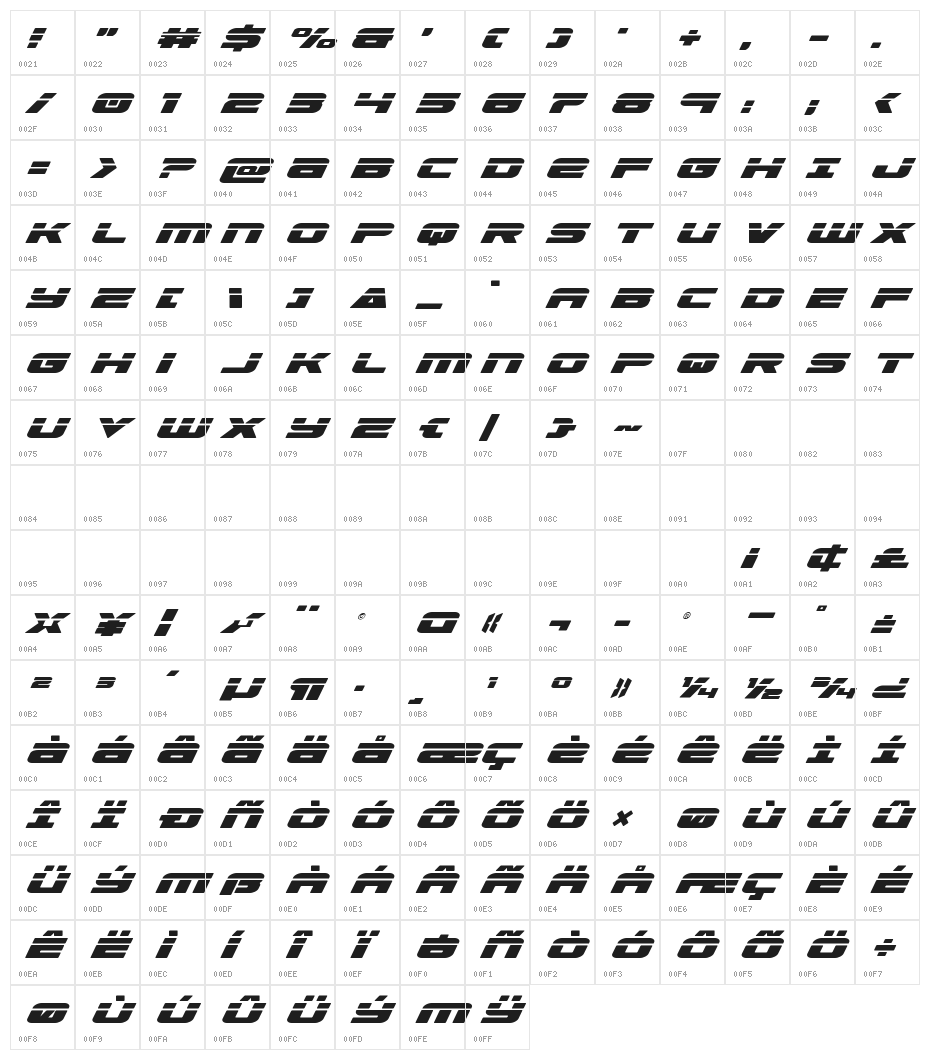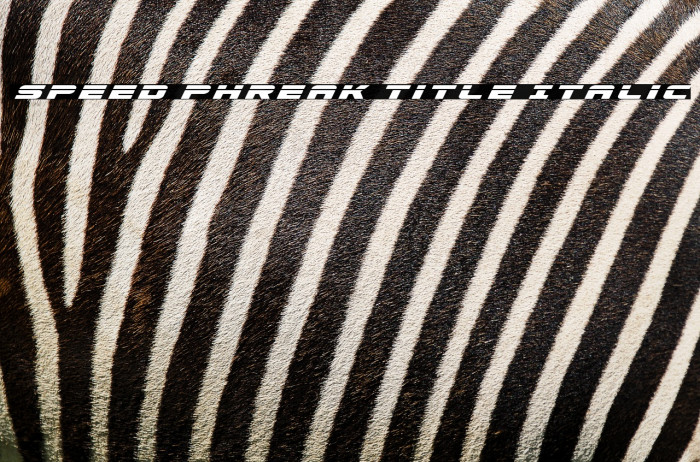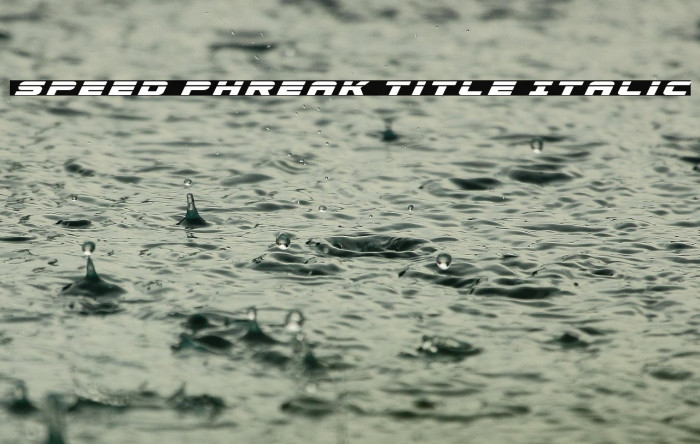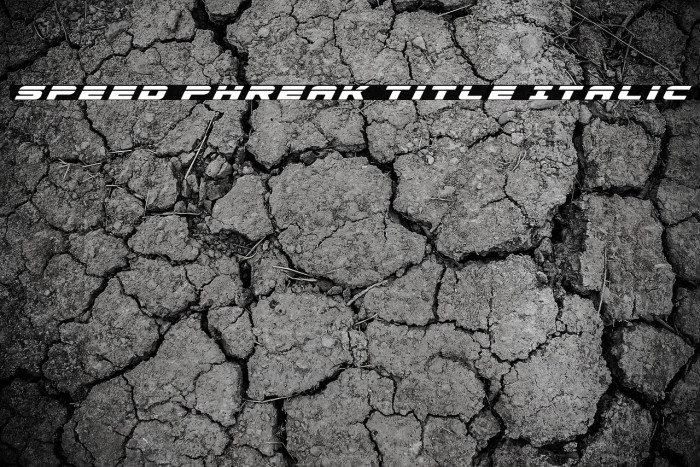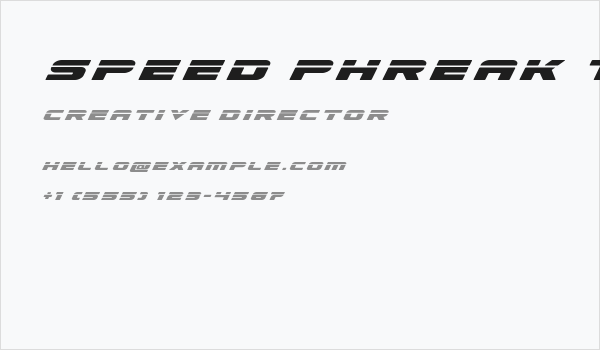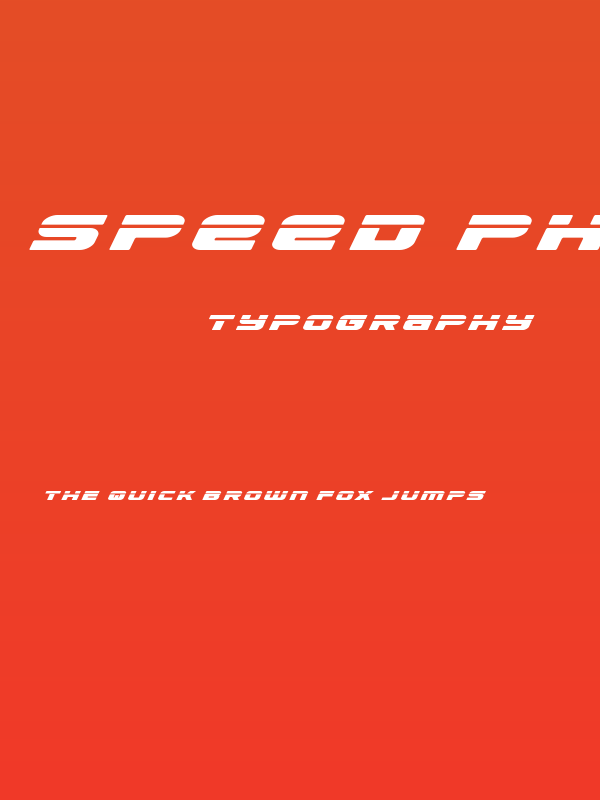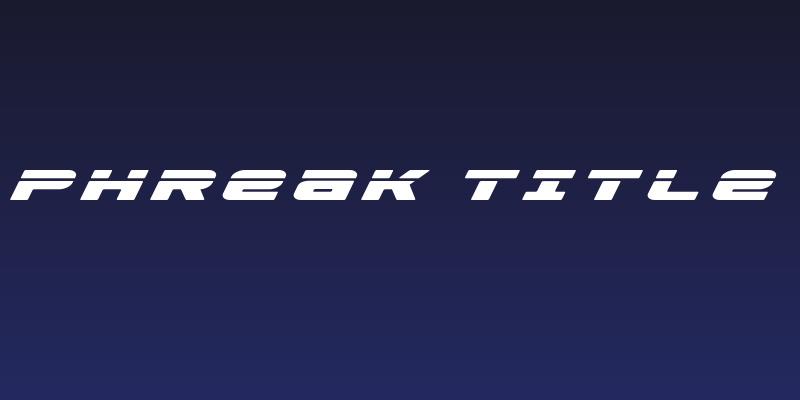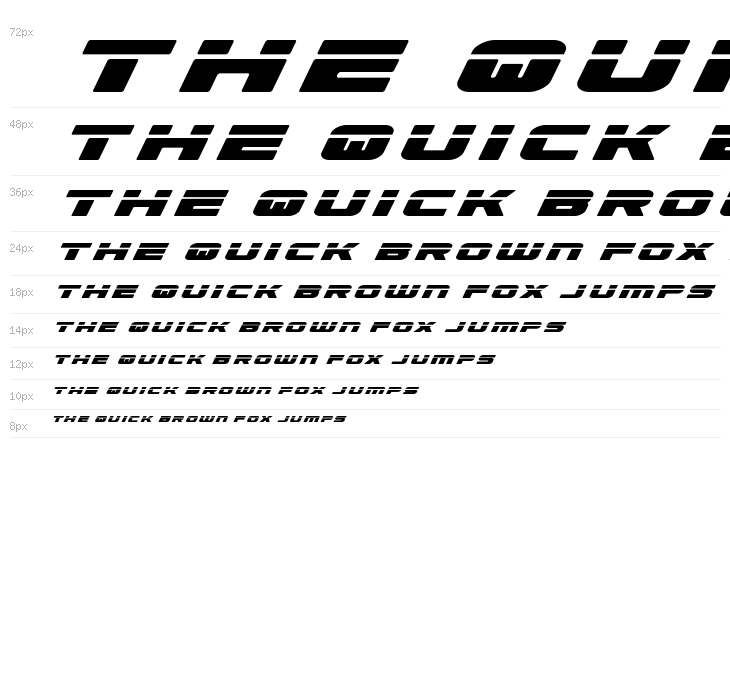
Speed Phreak Title Italic Font
Speed Phreak Title Italic Description
This font exhibits a dynamic and futuristic style, characterized by its italicized and angular letterforms. The design features sharp edges and a slanted orientation, giving it a sense of speed and motion. The uppercase and lowercase letters maintain a consistent geometric structure, while the numerals and special characters complement the overall aesthetic. The bold weight of the font enhances its presence, making it suitable for attention-grabbing applications. The spacing between characters is tight, contributing to its compact and cohesive appearance. This font is ideal for projects that require a modern and energetic look.
Overall StyleFuturistic
Proposed ProjectsIdeal for sports branding, automotive designs, tech-related projects, and dynamic posters.